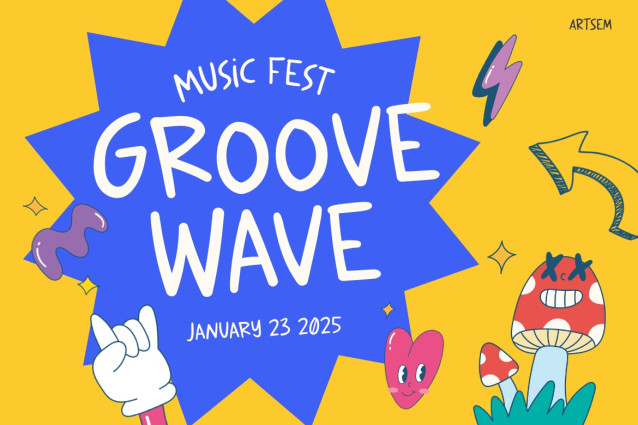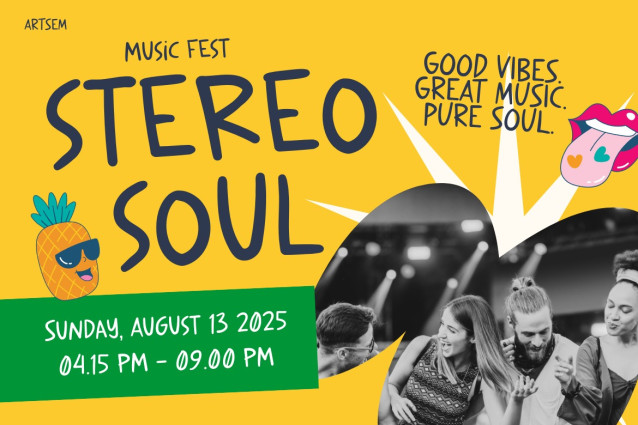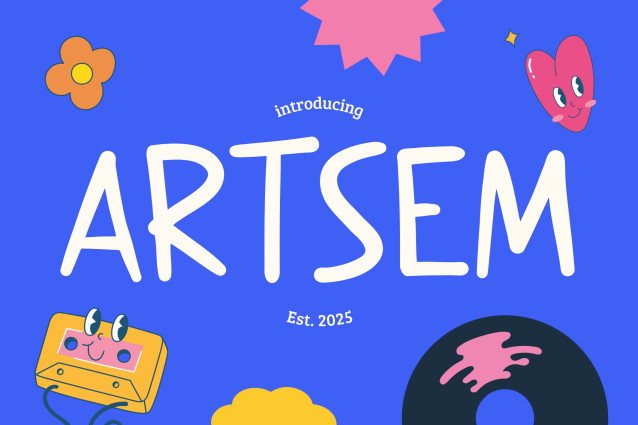
Artsem Hand Font
Artsem Hand Font is a truly unique typeface that instantly adds playful energy and bold creativity to your projects. Unlike standard fonts, it combines a handcrafted feel with artistic balance, making every letter look natural yet impactful. Moreover, its vibrant strokes, rounded edges, and expressive details ensure your design feels both professional and approachable. Therefore, it works perfectly for posters, banners, music festivals, or any project that requires strong visual identity.
Why Handwriting Font Artsem Stands Out
The charm of Handwriting Font Artsem lies in its ability to communicate emotions through typography. Not only does it offer casual handwritten aesthetics, but it also ensures legibility that suits both digital and print designs. In addition, each character flows with dynamic energy, creating headlines and quotes that stand out effortlessly. As a result, your projects won’t just display text—they will tell a story filled with creativity and impact.
Who Can Use Handwriting Font Artsem?
This font is designed for creatives, entrepreneurs, and professionals who want their messages to shine. For example, event organizers will appreciate it for festival posters and concert promotions. Similarly, content creators can use it to design social media graphics that instantly grab attention. Moreover, teachers and students will find it valuable for projects that should look both fun and professional. On the other hand, graphic designers can rely on it as a versatile tool for branding, packaging, merchandise, or editorial layouts.
Final Words – Make Your Design Speak Loudly
Typography is more than text—it is communication. With Handwriting Font Artsem, you gain a design tool that speaks louder and livelier than plain fonts. Furthermore, it adds personality and emotion, ensuring your audience feels connected to your message. So, if you need a typeface that is modern, fun, and full of artistic spirit, Artsem is the right choice. Don’t wait—make your projects unforgettable and bring them to life with Artsem today.